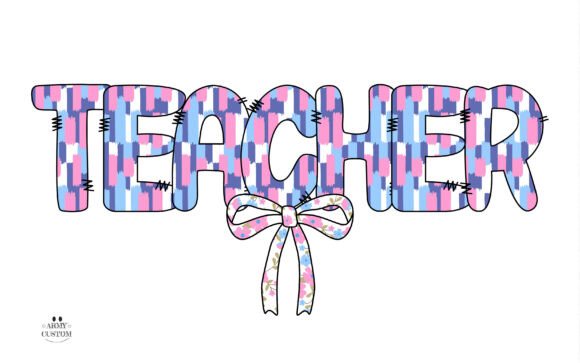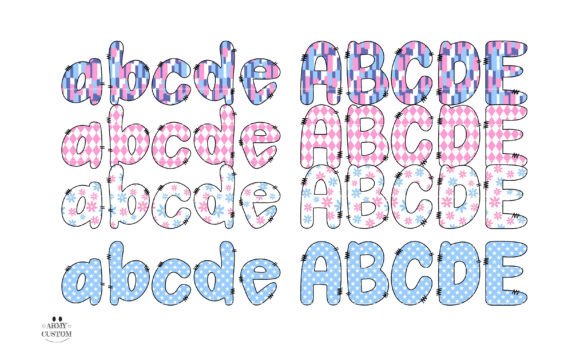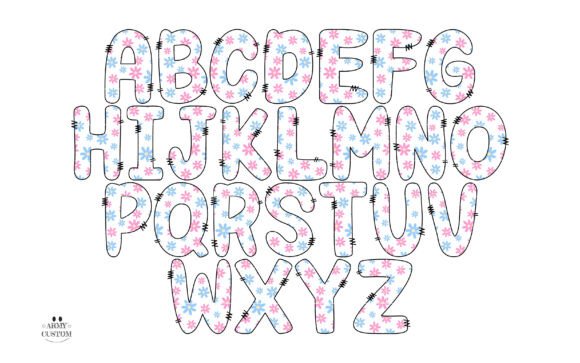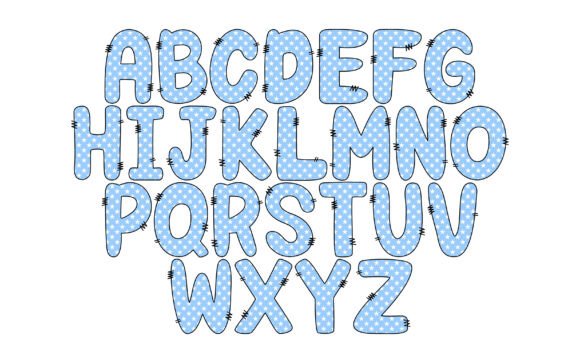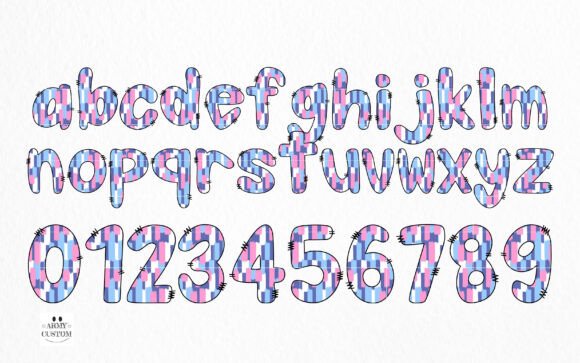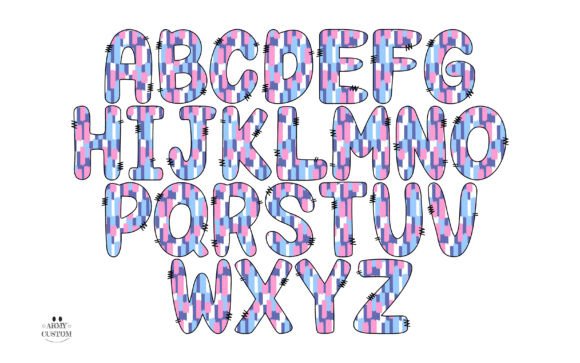
Introduction to Preppy Coquette Bundle Font Font
Fonts play a crucial role in design, and the Preppy Coquette Bundle Font font is a typeface that brings both character and versatility to any project. Whether you’re working on a branding project, a website, or a print design, the Preppy Coquette Bundle Font font offers a unique style that can elevate your work.
Preppy Coquette Retro Floral, an exceptional font that resonates the essence of classic American style.
As the name suggests, Be ready to experience a typographical journey filled with the spirit of nationhood profoundly embedded in every stroke and curve Experience the timelessness of retro aesthetic combined with delightful floral motifs, which come together to form this beautiful Preppy Coquette Retro Floral font.
Key Features of Preppy Coquette Bundle Font Font
Why Choose Preppy Coquette Bundle Font Font?
The Preppy Coquette Bundle Font font is more than just a typeface – it’s a design tool that helps you communicate your message with style and clarity. Its unique character set and versatile design make it suitable for a wide range of applications, from elegant invitations to bold headlines.
With its carefully crafted letterforms and balanced proportions, the Preppy Coquette Bundle Font font ensures readability and visual appeal across all mediums.
What makes Preppy Coquette Bundle Font font special?
The Preppy Coquette Bundle Font font stands out with its unique design, exceptional readability, and versatility across various design applications.